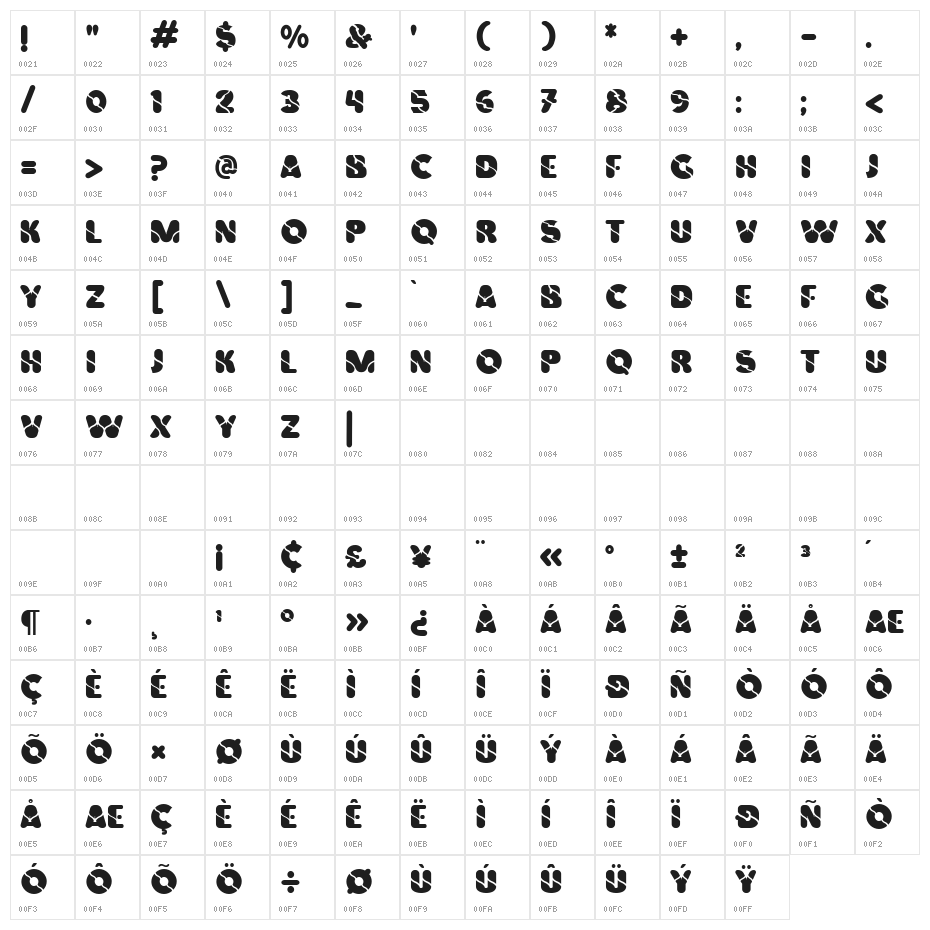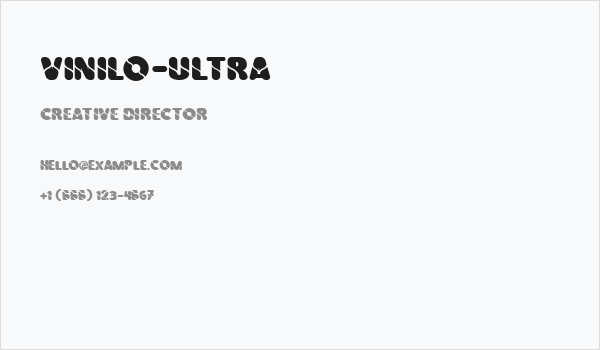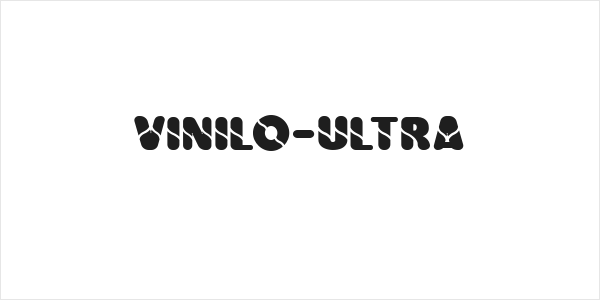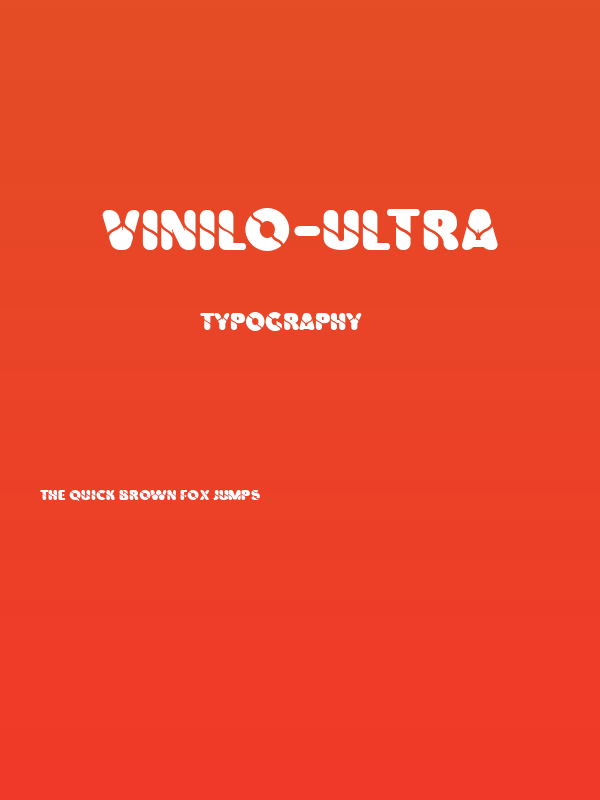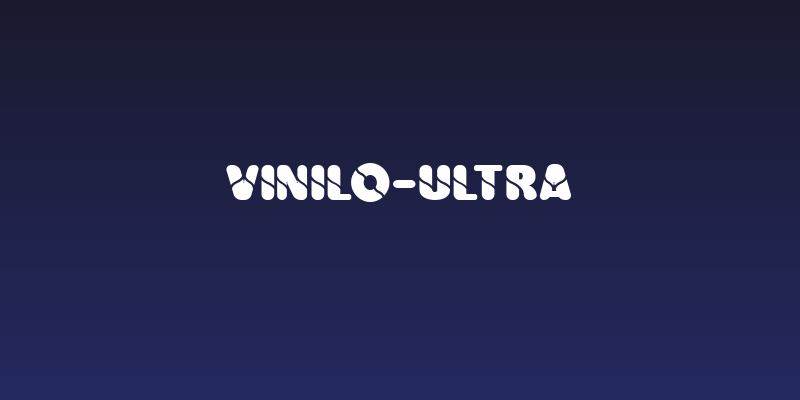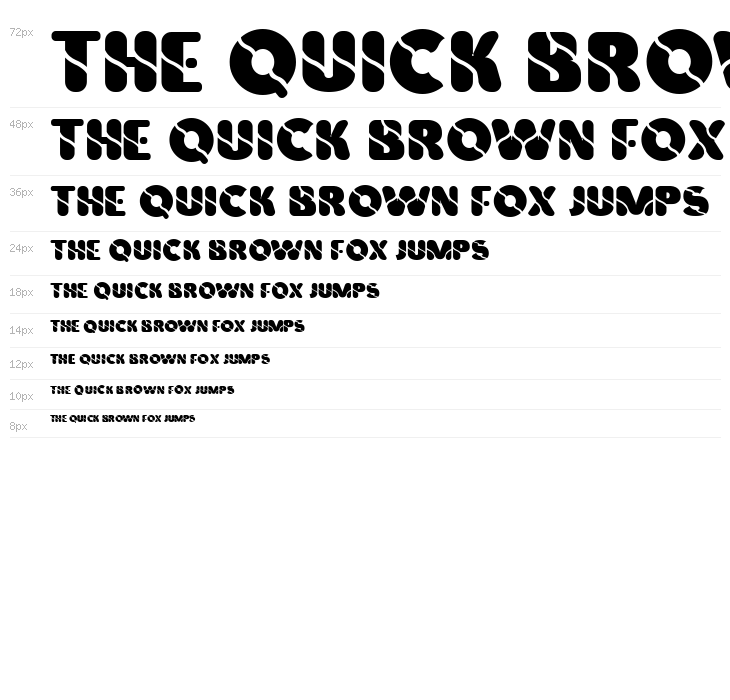
Vinilo-Ultra Font
Vinilo-Ultra Description
This font features a bold and striking design with a unique cut-out pattern that creates a dynamic visual effect. The characters are heavily stylized with thick strokes and rounded edges, giving them a modern and playful appearance. The cut-out sections within each letter add an element of intrigue and complexity, making it stand out in any design. The font maintains a consistent weight throughout, ensuring readability while still offering a distinctive look. Its boldness and decorative style make it suitable for eye-catching headlines and creative projects.
| Proposed Projects | Ideal for posters, branding, album covers, and any project requiring a bold, artistic touch. |